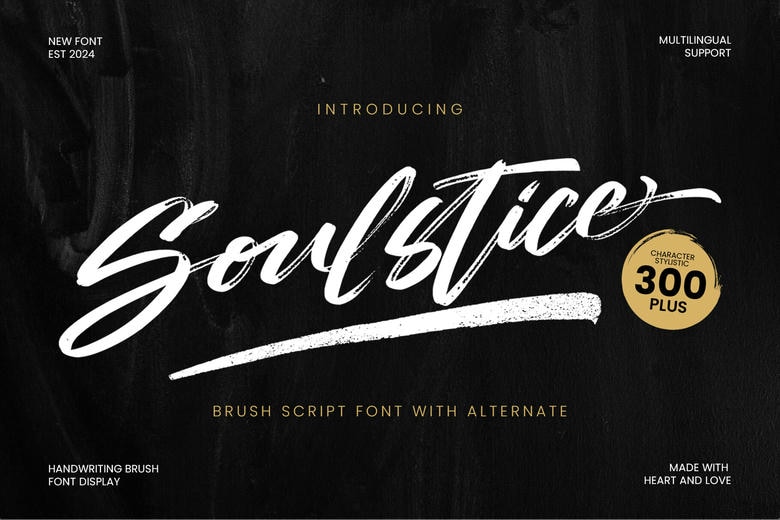
Soulstice Font
Soulstice is a confident and demonstrative brush script typeface with over 300 style characters. Ideal to brand, album covers, street apparel logos, and high impact posters. Its animated lines and hand-painted texture make it perfect to the designs that desire to scream attitude and energy.
Soulstice Brush Script Font